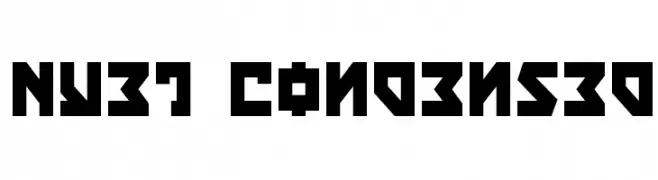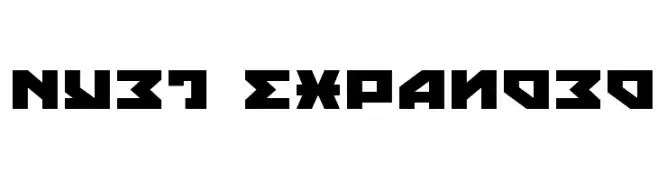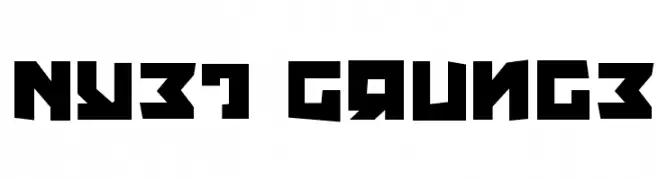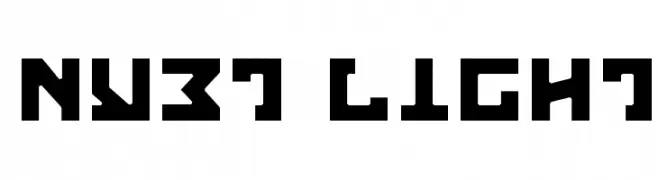
Nyet Extra Bold Font
Font by Iconian Fonts - Daniel Zadorozny
A bold, geometric font with angular lines and a blocky appearance.
Nyet Font
Bold, geometric font with sharp angles and a blocky design.
Nyet Light Font
Font by Iconian Fonts - Daniel Zadorozny
A bold, geometric font with sharp angles and a futuristic look.
Nyet Leftalic Font
A bold, angular font with a futuristic geometric style.
Nyet Semi-Condensed Font
Font by Iconian Fonts - Daniel Zadorozny
A bold, geometric font with angular lines and a semi-condensed width.
Nyet Grunge Font
Font by Iconian Fonts - Daniel Zadorozny
A bold, angular font with a grunge aesthetic and modern edge.
Nyet Condensed Font
A bold, geometric, and condensed font with sharp angles and a strong visual impact.
Nyet Semi-Bold Font
Font by Iconian Fonts - Daniel Zadorozny
A bold, geometric font with sharp angles and a blocky appearance.
Nyet Italic Font
A bold, geometric italic font with a dynamic and modern style.
Nyet Expanded Font
A bold, geometric font with sharp angles and a futuristic style.
Nyet Extra-Expanded Italic Font
A bold, extra-expanded italic font with a futuristic and dynamic style.
Nyet Halftone Font
A bold, geometric font with a halftone effect and futuristic style.
Nyet Expanded Italic Font
A bold, angular, and futuristic font with an expanded italic style.
Nyet Semi-Italic Font
A bold, angular font with a dynamic, geometric design.
Nyet Condensed Italic Font
A bold, angular, and italic font with a futuristic and dynamic style.
Nyet 3D Italic Font
A bold, 3D italic font with a futuristic and dynamic style.
Nyet Halftone Italic Font
A bold, futuristic italic font with a halftone effect and geometric shapes.
Nyet Extra-Expanded Font
A bold, geometric font with sharp angles and a futuristic style.
Nyet Laser Italic Font